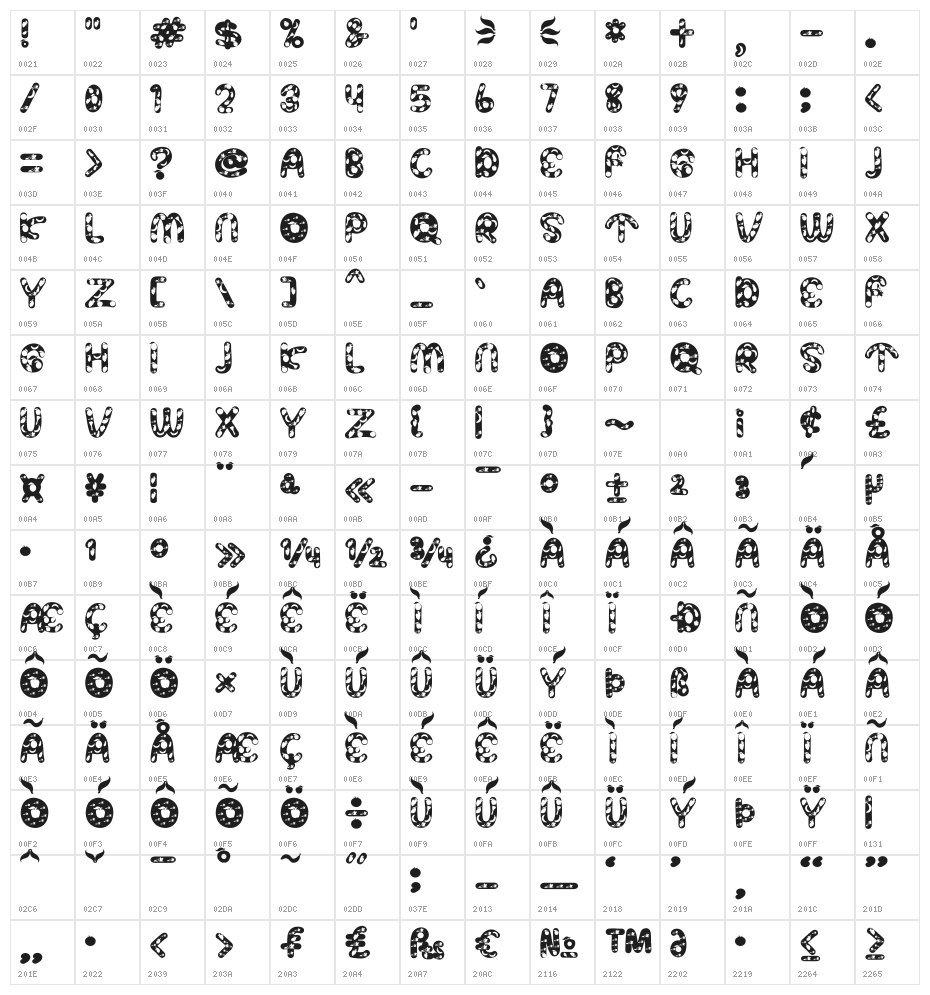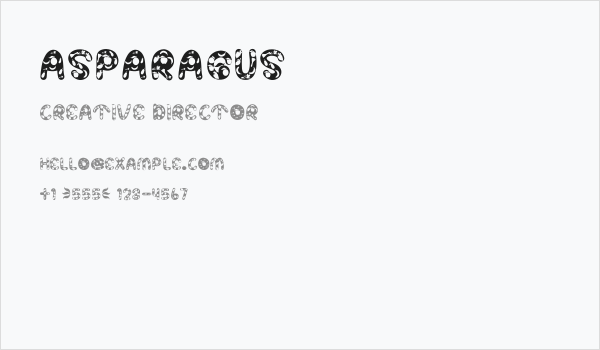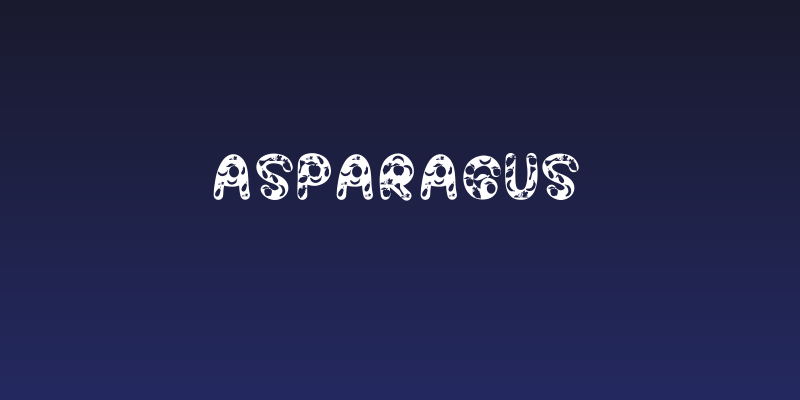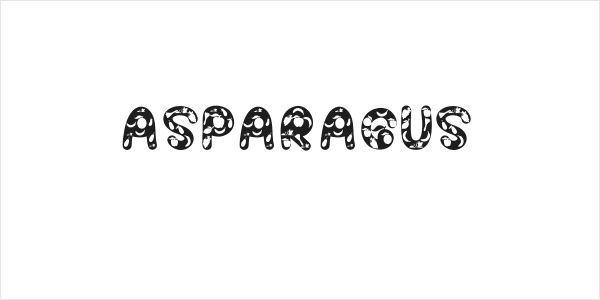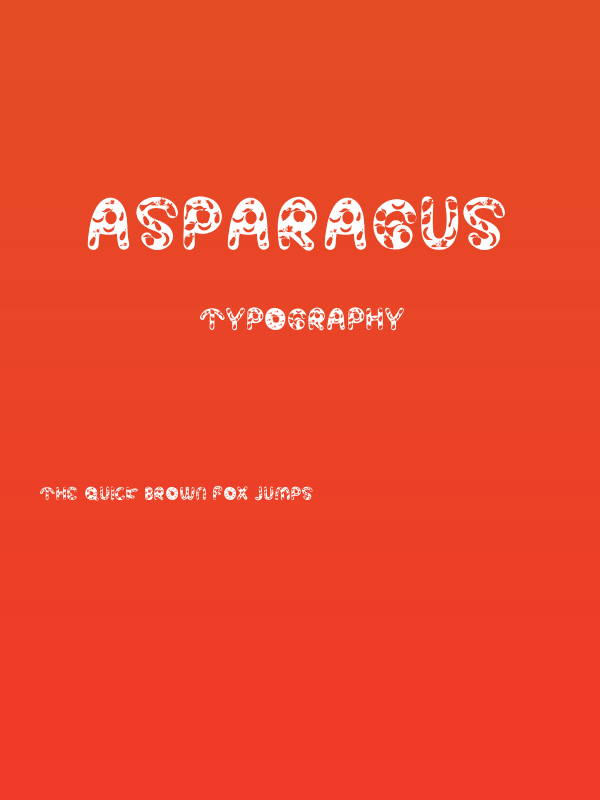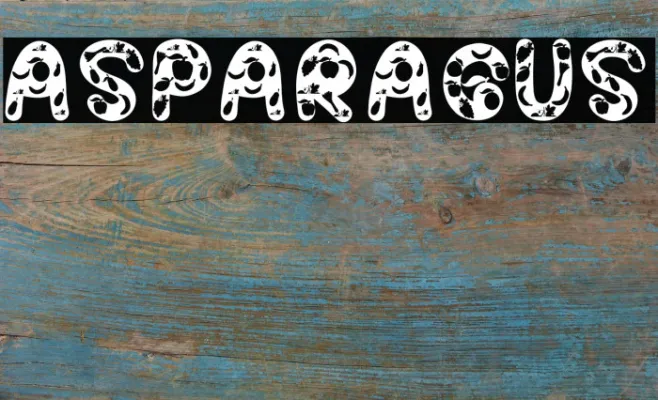
ASPARAGUS Font
ASPARAGUS Description
This playful and decorative font features a bold, rounded style with a unique pattern of cut-out shapes within each character, giving it a whimsical and eye-catching appearance. The letters are uniformly bold, with consistent stroke thickness and rounded edges, creating a friendly and approachable look. The cut-out shapes resemble abstract floral or organic patterns, adding a layer of intricacy and visual interest. This font is highly stylized, making it ideal for creative projects that require a fun and engaging typeface. The numbers and special characters maintain the same playful design, ensuring consistency across all elements.